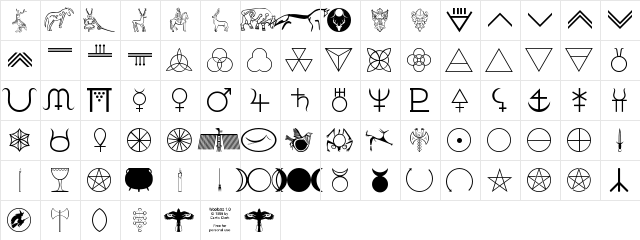
Woolbats Regular Free Font
Woolbats Regular
Design Context for Woolbats
Woolbats is a composed and adaptable typeface that performs quietly and consistently across a wide range of design contexts.